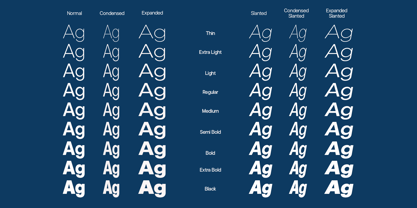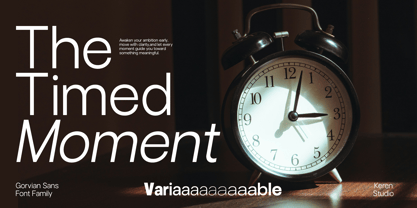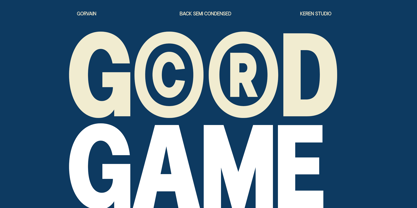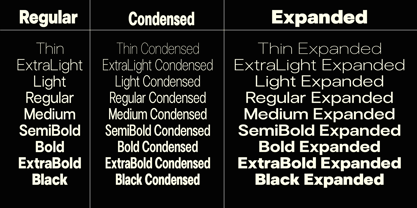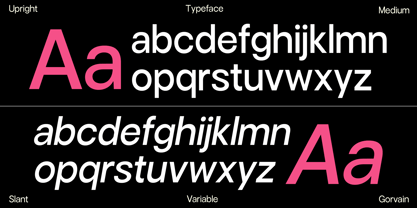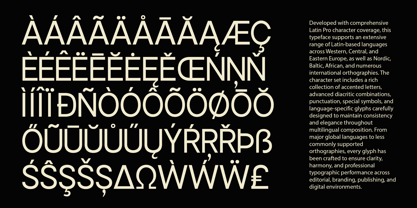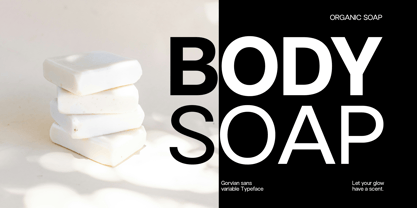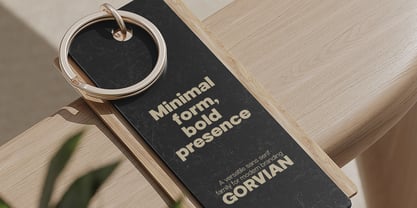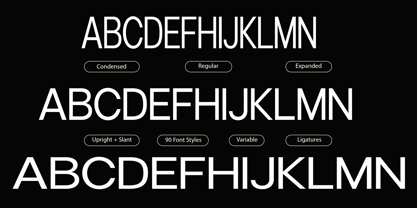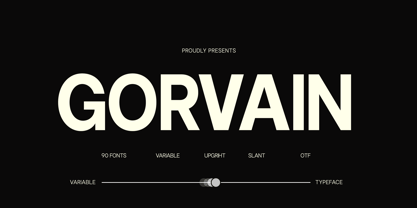
Gorvain
by Keren Studio
The Gorvain Font Family was designed by Cut Nurul Hadia and published by Keren Studio. Gorvain contains 91 styles and family package options. More about this family
Gorvain is a modern sans serif typeface designed to deliver clarity, strength, and flexibility in every composition. Built as a comprehensive variable system, it offers an extensive range of weights and slants, allowing seamless transitions from clean upright forms to expressive angled styles.
With a total of 90 fonts, Gorvain is crafted to adapt across a wide spectrum of design needs—whether for bold headlines, branding, editorial layouts, or digital interfaces. Its balanced proportions and refined geometry create a confident presence while maintaining excellent readability at any size.
The typeface includes both upright and slanted styles, giving designers precise control over weight and angle adjustments. Gorvain is not just a typeface—it’s a versatile design tool built to elevate modern visual communication.